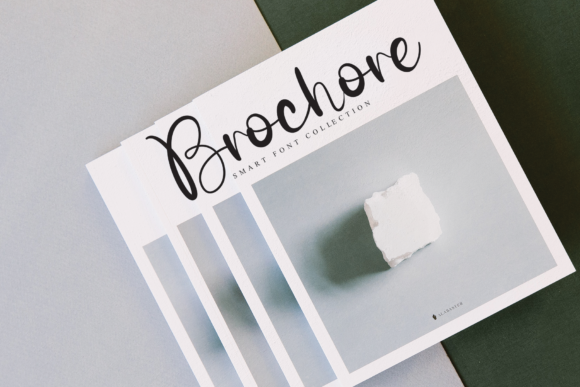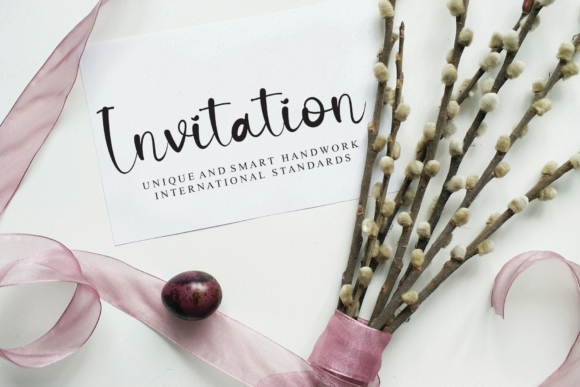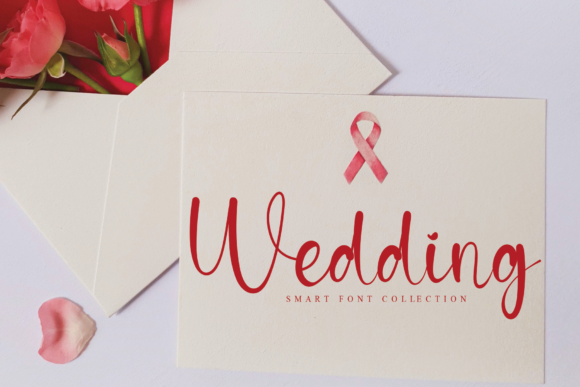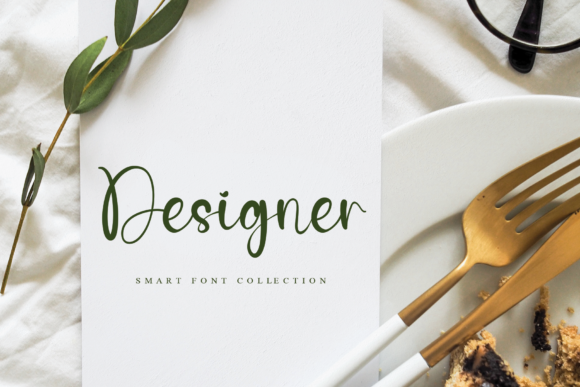
Introducing Agreeable Font: Elevate Your Designs with Elegant Script
In the world of typography, a well-crafted font can make all the difference in elevating your designs to new heights. For designers and crafters seeking a touch of sophistication and elegance, the Agreeable Font is an excellent choice. This beautiful script font boasts a contemporary atmosphere, impeccable form, and a balanced, varied aesthetic that is sure to enhance the beauty of your projects.
The Inspiration Behind Agreeable Font
Agreeable Font draws inspiration from timeless classic calligraphy, bringing a sense of tradition and refinement to your designs. The creator of this elegant script font aimed to strike a perfect balance between being not too thin and not too thick, resulting in a versatile typeface suitable for a wide range of applications. Whether you’re working on a logo, branding materials, or creative projects, Agreeable Font offers the perfect blend of style and legibility.
Key Features of Agreeable Font
- Elegant Script Style: Agreeable Font features a beautiful, flowing script style that adds a touch of sophistication to any design.
- Contemporary Atmosphere: With its clean lines and balanced aesthetic, this font exudes a modern, contemporary feel that’s perfect for designs that require a fresh look.
- Impeccable Form: The creator of Agreeable Font has paid close attention to detail, ensuring that each letterform is meticulously crafted to provide a polished, refined appearance.
- Balanced and Varied: The font’s balanced and varied design makes it suitable for a wide range of applications, from headings and titles to body text and more.
Use Cases for Agreeable Font
Agreeable Font’s versatility makes it an excellent choice for various design projects, including:
- Logo Design: Create a lasting impression with a custom logo that incorporates the elegant, script style of Agreeable Font.
- Branding Materials: Use Agreeable Font to add a touch of sophistication to your branding materials, such as business cards, letterheads, and brochures.
- Creative Projects: Add a touch of elegance to your creative projects, such as invitations, posters, and social media graphics.
- Web Design: Enhance the visual appeal of your website with Agreeable Font, perfect for headings, titles, and other design elements.
Tips for Using Agreeable Font Effectively
To get the most out of Agreeable Font, consider the following tips:
- Pair with Complementary Fonts: Combine Agreeable Font with complementary fonts to create a visually appealing contrast and add depth to your designs.
- Experiment with Colors: Try out different color schemes to find the perfect combination that complements the elegant style of Agreeable Font.
- Pay Attention to Spacing: Ensure that your text is well-spaced and easy to read, as Agreeable Font’s elegant style can be overwhelming if not used thoughtfully.
In conclusion, Agreeable Font is an excellent choice for designers and crafters seeking to add a touch of elegance and sophistication to their projects. With its beautiful script style, contemporary atmosphere, and impeccable form, this font is sure to elevate your designs to new heights. Whether you’re working on a logo, branding materials, or creative projects, Agreeable Font is a versatile and stylish solution that’s sure to impress.